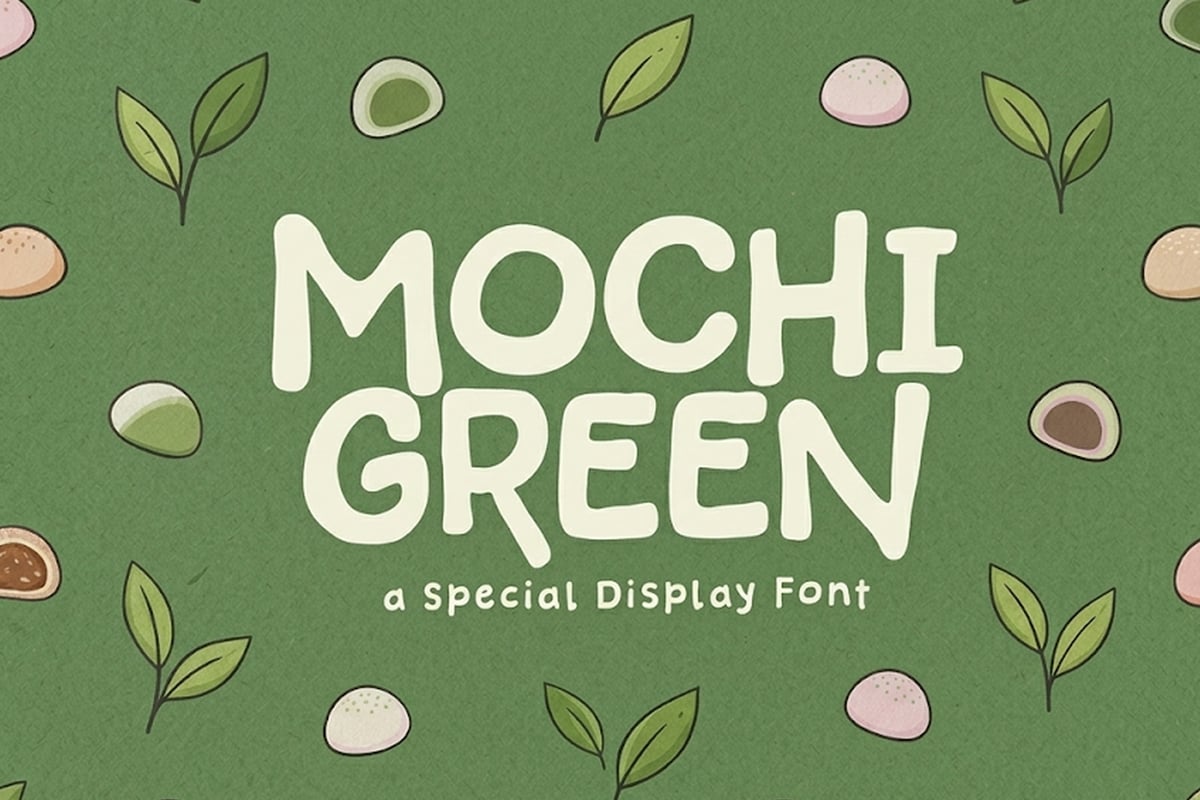
Mochi Green - Cozy & Display Font
Transform your designs with Mochi Green's irresistibly cozy display font that radiates pure childlike wonder!
This contemporary handwritten typeface bursts with vibrant personality and spirited energy that instantly captures attention. Every character radiates charm, making it the perfect choice for creating memorable designs that stand out from the crowd.
Mochi Green's bold presence and delightful character make it incredibly versatile for multiple design applications:
- Eye-catching posters and promotional materials
- Distinctive logos and branding
- Magazine layouts and editorial design
- Book covers that demand attention
- Banners and signage